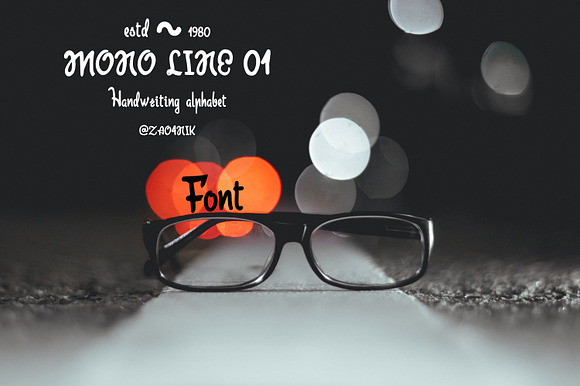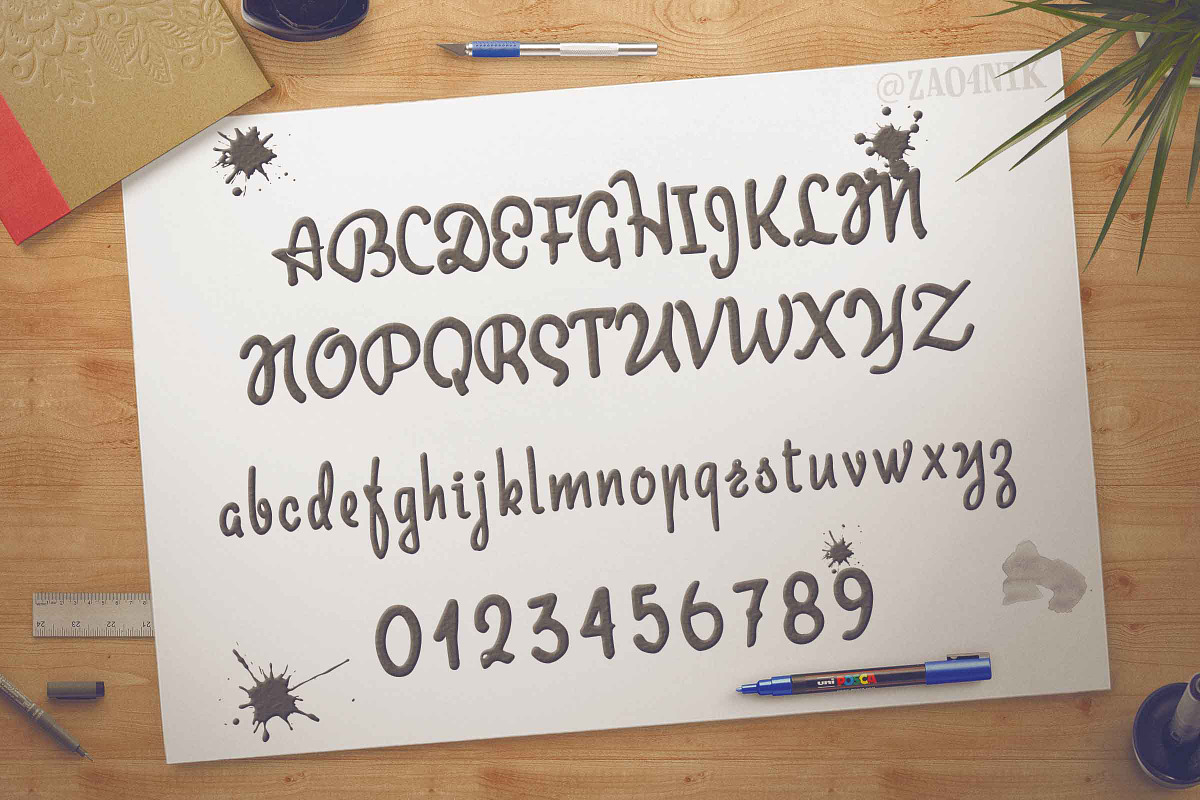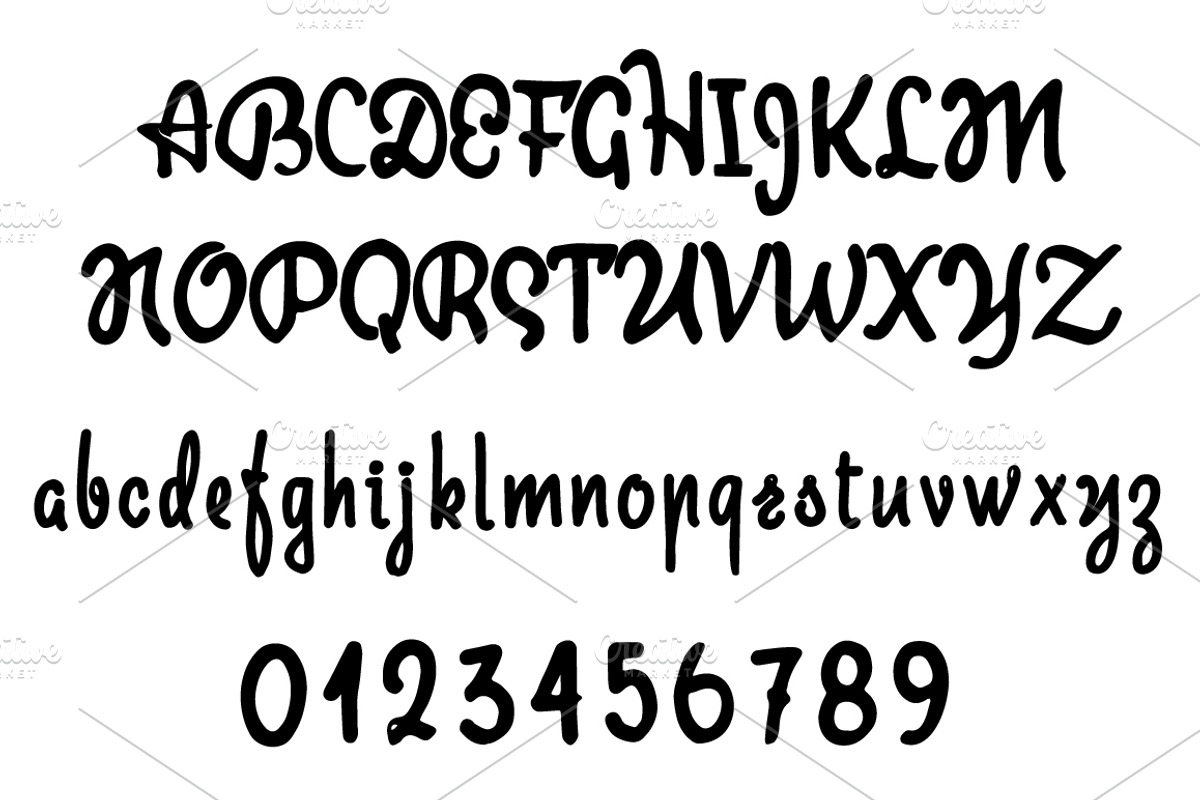
Mono line 01 font
Hi guys! I created a new font. This is written with a round pen
Why Mono line 01 font is worth a look
Mono line 01 font by zao4nik fits naturally into Branding, posters, packaging, typography.